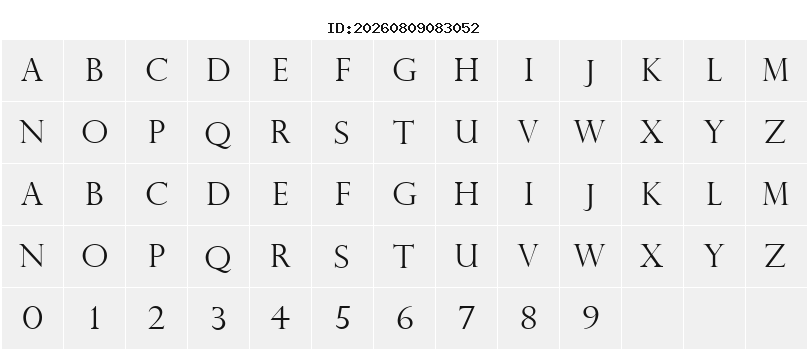
• Font Name: Perpetua Titling MT
• Font Style: Maigre
• Font ID: Perpetua Titling MT Light
• Full Font Name: Perpetua Titling MT Maigre
• Designer: Eric Gill
• Manufacturer: Monotype Typography
• Description: A sensitive adaptation of a style of letter that had been popularized for monumental work in stone by Eric Gill. Large scale drawings by Gill were given to Charles Malin, a Parisian punch-cutter, and his hand cut punches were the basis for the font issued by Monotype. The incised quality of Perpetua will lend distinction to any work compatible with its serenity. First used in a private translation called 'The Passion of Perpetua and Felicity'; the italic was originally called Felicity. Widely used as a text face in quality books, Perpetua is also very popular in advertising and display work.